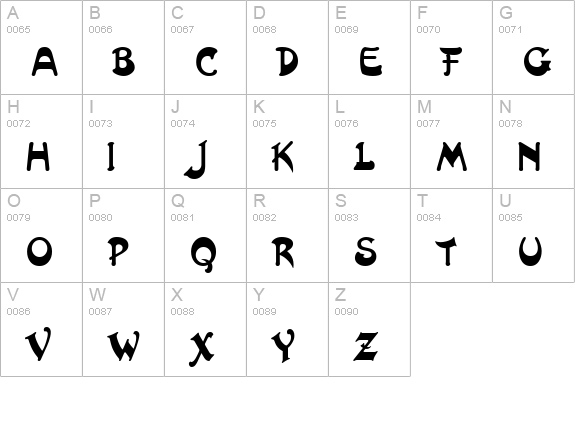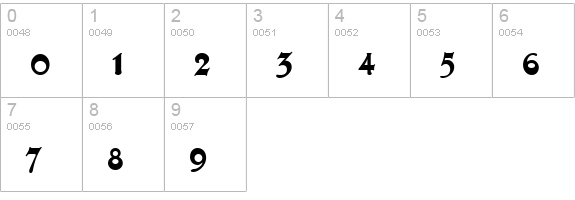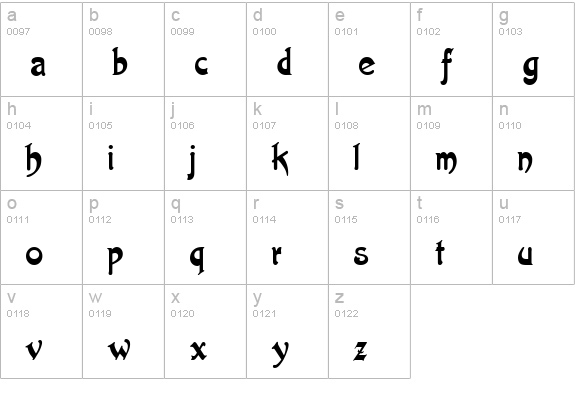
Artistik Font Details
Artistik font is a stunning display typeface that exudes creativity and elegance. With its unique and artistic design, this font is perfect for adding a touch of sophistication to any project. The intricate details and stylish curves of Artistik font make it stand out and capture attention effortlessly. What makes Artistik font even more appealing is that it is available for free download at FontsMarket.com. This means that you can easily access this beautiful font and use it in your designs without any cost. Whether you're working on branding, advertising, or any other creative project, Artistik font will elevate your work and leave a lasting impression. Don't miss out on this amazing opportunity to enhance your designs with the free Artistik font from FontsMarket.com.